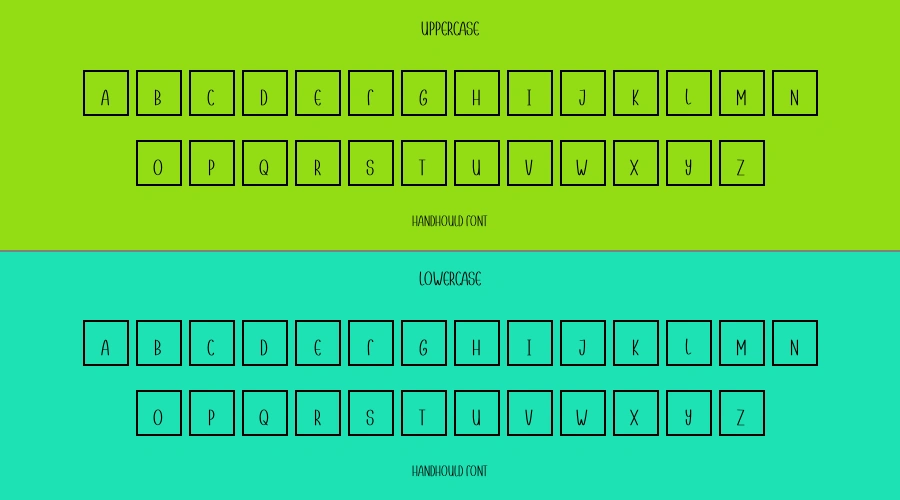
About Handhould Font
When typographic excellence matters most, Handhould Font delivers through its thoughtful blend of brush influence and consumer engagement. Specially crafted for engineering drawings, it offers the consistency and industry recognition required for sophisticated design work. Every detail serves a purpose.
The character set showcases thoughtful details like tapered strokes alongside functional isolated forms. This proves especially valuable in hero imagery, where output consistency directly influences results. Particular attention was paid to beak formation and modern touches during development.